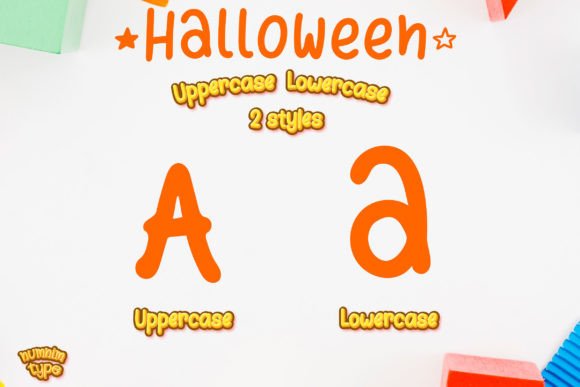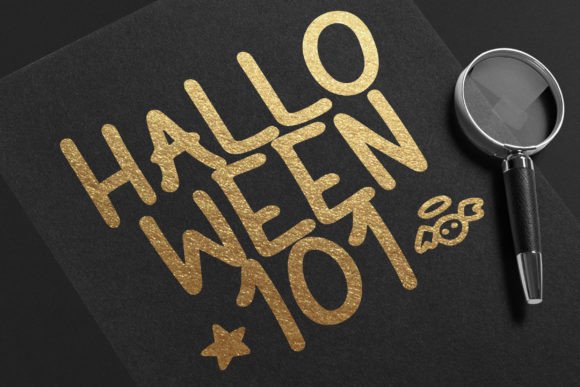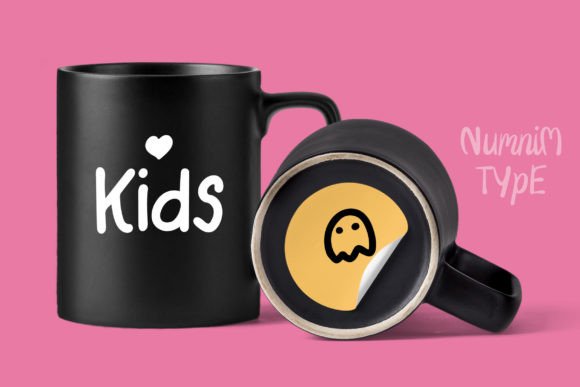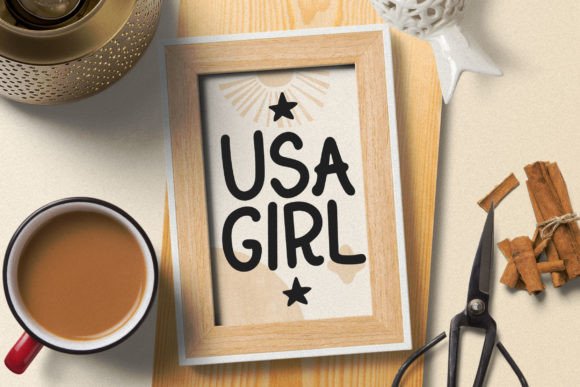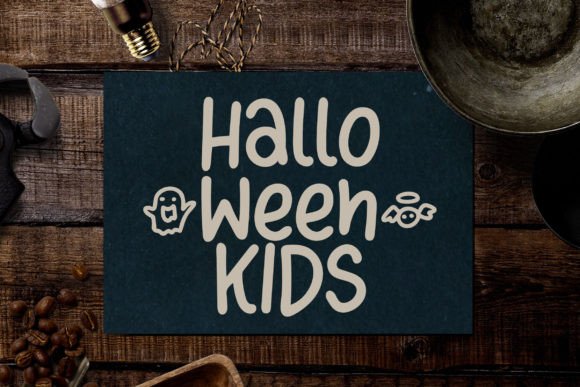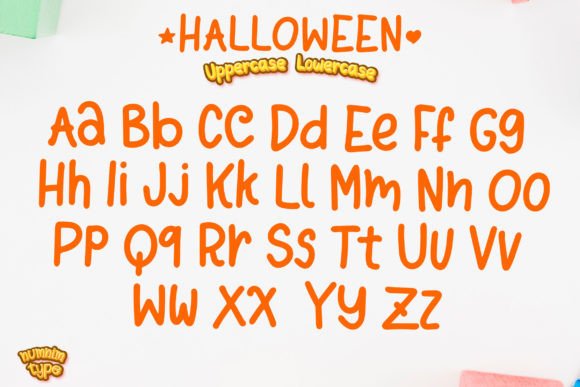
Introducing Halloween Font: The Perfect Addition to Your Spooky Season Designs
Halloween is just around the corner, and what better way to get into the spirit than with a font that’s as fun and playful as the holiday itself? Look no further than Halloween Font, a cute and uniquely crafted handwritten font that’s perfect for all your spooky season design needs.
What Makes Halloween Font So Special?
Halloween Font is a one-of-a-kind, handmade font that’s bursting with personality. Its fun and playful characters are designed to bring a smile to your face, making it the perfect choice for a wide range of design projects. Whether you’re creating stickers, mugs, t-shirts, ornaments, Halloween event cards, or anything else, this font is sure to add a touch of whimsy and charm.
Key Features of Halloween Font
- Handwritten with love: Each character in Halloween Font has been carefully crafted by hand, giving it a unique and personal touch.
- Fun and playful: The font’s playful characters are designed to evoke the fun and excitement of Halloween.
- Perfect for a wide range of designs: From stickers and mugs to t-shirts and ornaments, Halloween Font is versatile enough to use on almost any project.
- Easily readable: Despite its playful nature, Halloween Font is still easy to read, making it perfect for use on event cards, invitations, and other designs where legibility is important.
Uses for Halloween Font
The possibilities are endless when it comes to using Halloween Font. Here are a few ideas to get you started:
- Stickers: Create spooky-ooky stickers for laptops, water bottles, or any other surface that needs a touch of Halloween cheer.
- Mugs: Design a Halloween-themed mug that’s perfect for sipping hot cider or coffee on a crisp fall day.
- T-shirts and hoodies: Create a fun and playful design for a Halloween-themed t-shirt or hoodie.
- Ornaments: Use Halloween Font to create spooky-ooky ornaments for your Halloween tree or home decor.
- Event cards and invitations: Design a Halloween event card or invitation that’s sure to stand out with Halloween Font.
Tips for Using Halloween Font
Here are a few tips for getting the most out of Halloween Font:
- Experiment with different colors: Halloween Font looks great in a range of colors, from traditional orange and black to more unexpected shades like purple and green.
- Mix and match with other fonts: Don’t be afraid to pair Halloween Font with other fonts for a unique and eye-catching design.
- Play with texture and pattern: Add an extra layer of interest to your design by incorporating texture or pattern.
Halloween Font: The Perfect Addition to Your Design Toolbox
Whether you’re a professional designer or a crafter looking for a fun and creative way to express yourself, Halloween Font is a must-have addition to your design toolbox. So why not give it a try? With its unique and playful characters, Halloween Font is sure to become a favorite font for all your spooky season design needs.